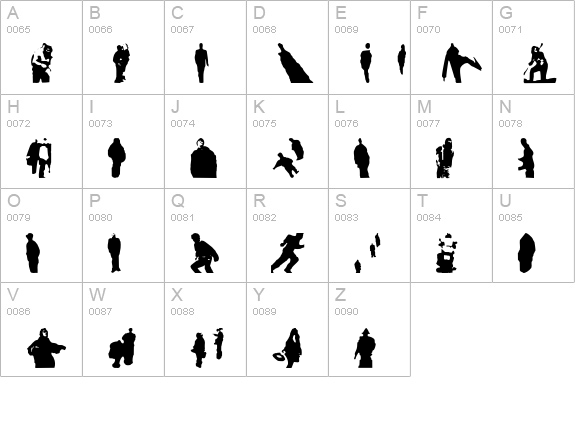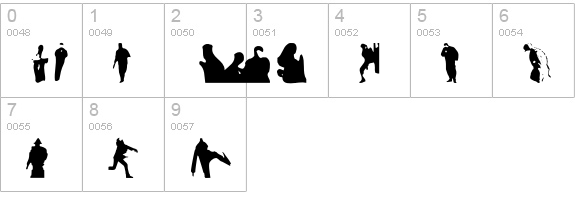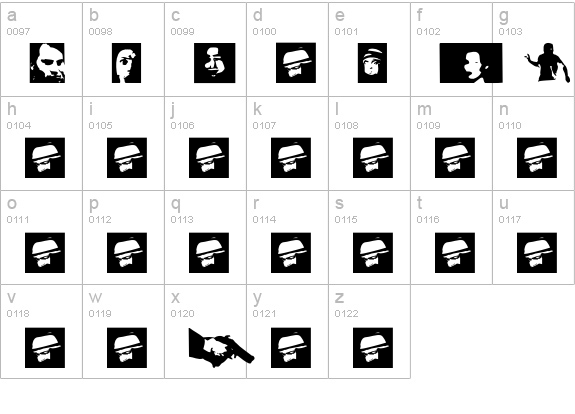
Surveillance-SuspiciousPeople Font Details
Introducing Surveillance-SuspiciousPeople font, a captivating and mysterious typeface designed to add an element of intrigue to your projects. This font exudes a sense of surveillance and suspicion, perfect for creating a tense and edgy atmosphere in your designs. With its sharp angles and bold strokes, Surveillance-SuspiciousPeople font commands attention and leaves a lasting impression. Whether you're working on a thriller novel cover, a movie poster, or a surveillance-themed project, this font is sure to make a powerful statement. The best part? Surveillance-SuspiciousPeople font is completely free to download at FontsMarket.com. Now you can add a touch of mystery and suspense to your designs without breaking the bank. Don't miss out on this unique and eye-catching font - download it today and take your projects to the next level.